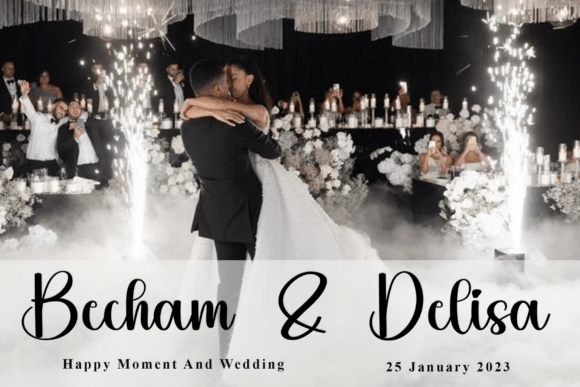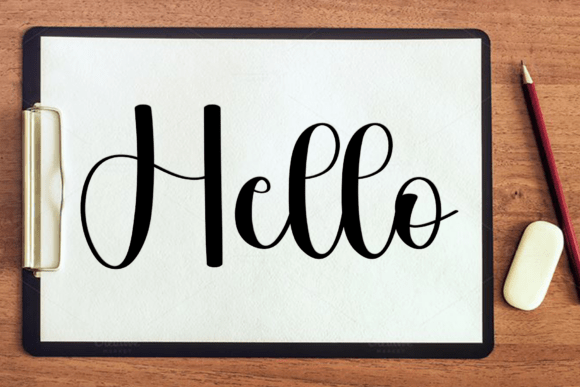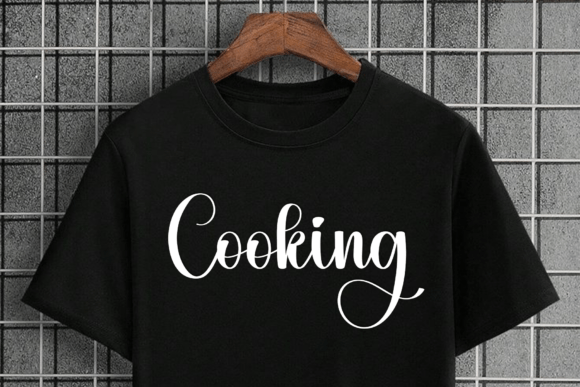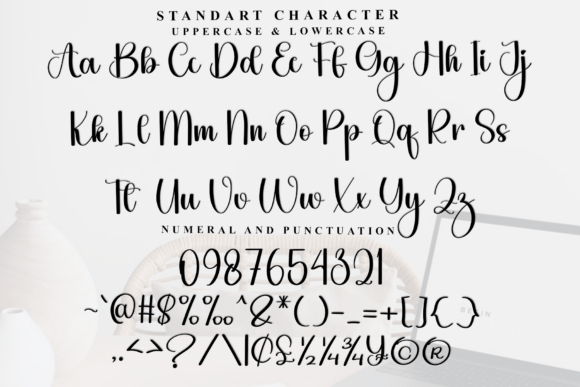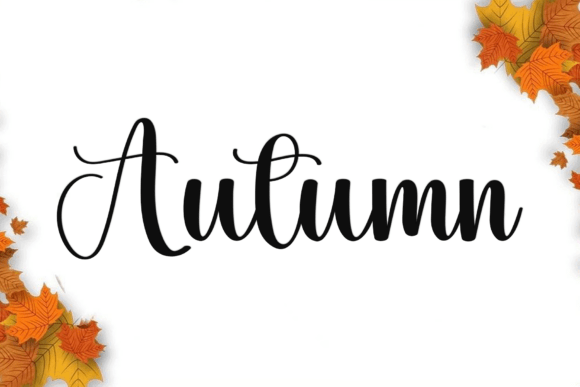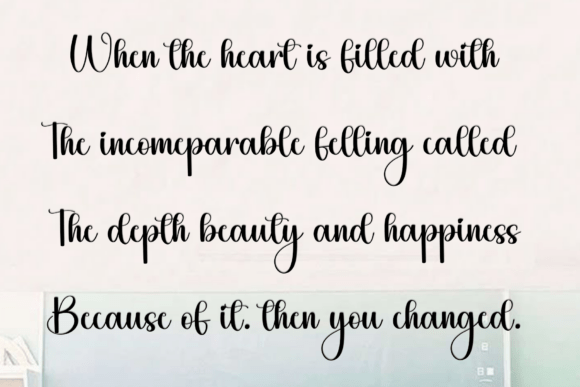
The Birth of a Beautiful Font: Discovering Birthday Darling
I still remember the time I was working on a birthday card design project, and I just couldn’t find the perfect font to match the celebratory feel. The client wanted something unique, yet elegant, and I was on a mission to deliver. That’s when I stumbled upon the Birthday Darling font, and it instantly stole my heart! 💕
Its soft, distinctive strokes and special character gave it a one-of-a-kind charm that I knew would make my design stand out. In this article, I’ll share my love for this beautiful font, its features, and how you can make the most of it in your design projects.
- Unique and eye-catching design
- Soft, elegant strokes
- Versatile and meaningful
- Perfect for design projects, crafts, and other creative works
While Birthday Darling is an amazing font, there are a few things to keep in mind:
- Some characters may not work well in very small font sizes
- Limited availability of bold or italic variations
- May require adjustment for optimal kerning
- Experiment with OpenType features, glyphs, and stylistic alternates to add some personality to your text
- Stylistic alternates: swap out characters for a more unique look
- Glyphs: add special characters and ornaments to your text
- Ligatures: create custom letter combinations
The Story Behind Birthday Darling: Designer Inspiration
The creator of Birthday Darling wanted to design a font that captured the magic of special moments, like birthdays and celebrations. With a focus on soft, elegant strokes and unique character details, they aimed to craft a font that’s both meaningful and versatile.
With its unique charm, versatility, and compatibility, Birthday Darling is sure to become a favorite in your design arsenal. Give it a try and see how it can elevate your designs! 🎉